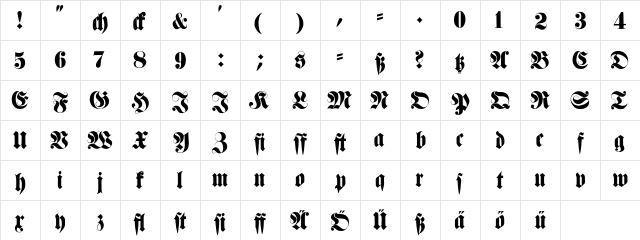
Fette Haenel Fraktur Regular
Design Context for Fette Haenel Fraktur Typeface
Fette Haenel Fraktur draws on the rich tradition of blackletter calligraphy, with dense, angular strokes that evoke medieval manuscripts and old-world craftsmanship.
Well-suited to band logos, craft beer branding, tattoo lettering, and heritage-themed identities.
Font Pairing: Pair with a clean neutral sans-serif for body copy to let Fette Haenel Fraktur's character lead without overwhelming the composition.
Pro Tip: Use Fette Haenel Fraktur sparingly at large sizes. Even a single word set in blackletter can define the visual register of an entire design.